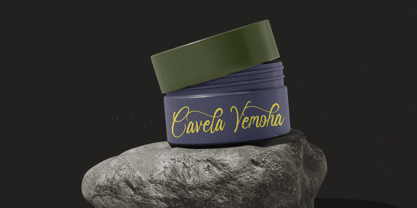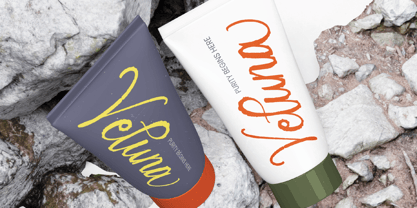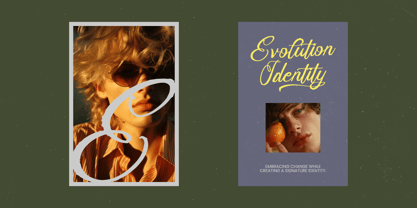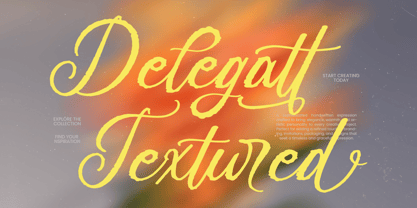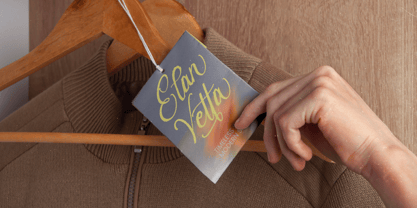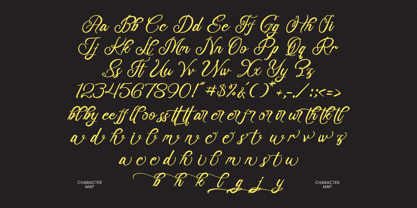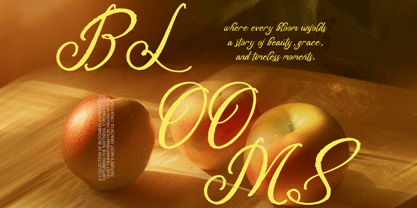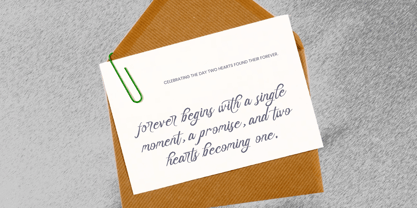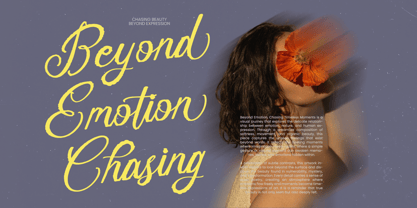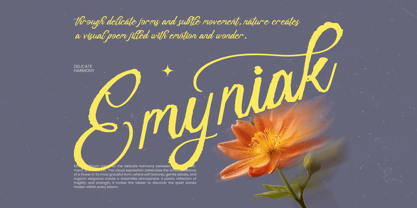
Delegatt Textured
Experience the soulful artistry of Delegatt Textured, where every stroke whispers a story of handcrafted elegance. This typeface captures the essence of raw beauty, blending sophisticated script forms with a rustic, tactile finish that breathes life into digital design.
Inspired by the organic movement of nature and the timeless charm of vintage calligraphy, Delegatt Textured was born from a desire to bridge the gap between classic refinement and contemporary grit. Its weathered edges evoke the feeling of ink on aged parchment, bringing an authentic, atmospheric presence to any creative canvas.